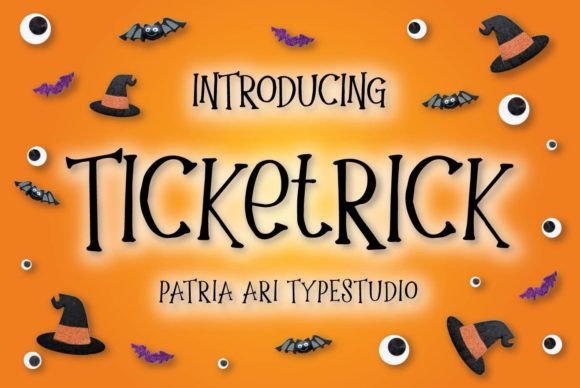
Step into the world of typography and let Ticketrick Font captivate your heart. This display font, designed by P4tcreativa, is a symphony of creativity and style. Its strokes dance with a modern rhythm, while its curves add a touch of whimsy, making it the perfect choice for those seeking a font that stands out.
Unleash your imagination and explore the endless possibilities that Ticketrick Font brings to your creative projects. Whether you're a designer, a blogger, or simply someone with a passion for unique aesthetics, this font will elevate your work to new heights. Its versatility shines through in its ability to adapt to a wide range of projects, from eye-catching logos to captivating social media posts.
Picture this: your designs adorned with Ticketrick Font's distinctive characters. Imagine your words flowing effortlessly across the screen, leaving a trail of visual delight. This font has the power to transform ordinary text into an extraordinary visual experience, captivating your audience from the very first glance.
With Ticketrick Font, you're not just downloading a font; you're embracing an artistic journey. Each letterform is meticulously crafted to evoke emotions and create a lasting impression. Its bold strokes command attention, while its delicate details add a layer of sophistication. Experience the joy of creating designs that speak to the soul, designs that leave an indelible mark on the minds of your viewers.
Don't settle for ordinary fonts. Embrace the extraordinary with Ticketrick Font. Its modern yet whimsical style will breathe life into your creative projects, making them shine brighter than ever before. Dare to be different, dare to captivate, and let this remarkable font guide you towards typographic excellence.